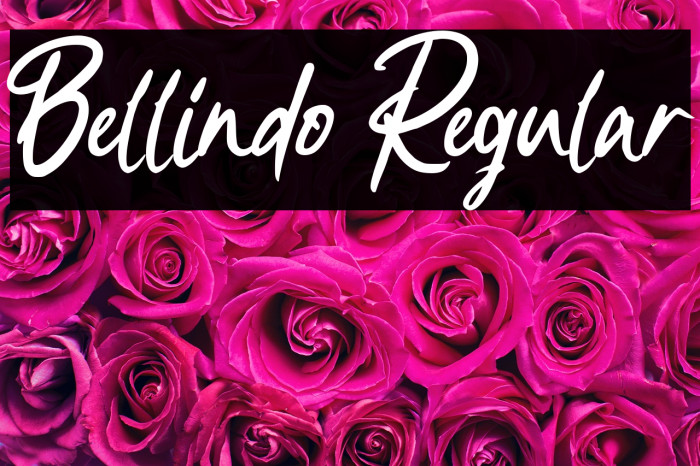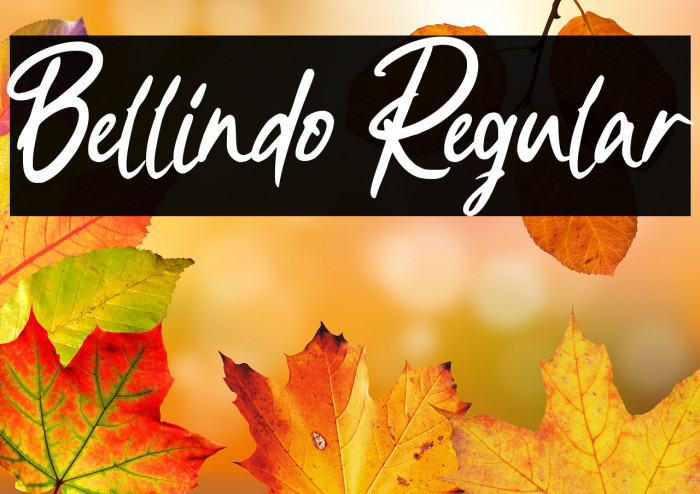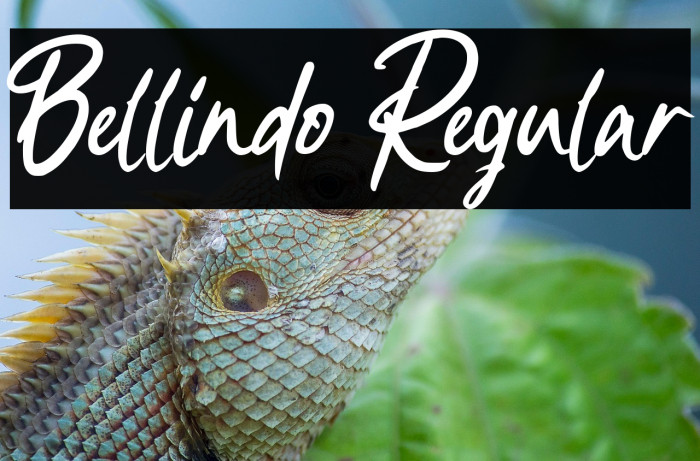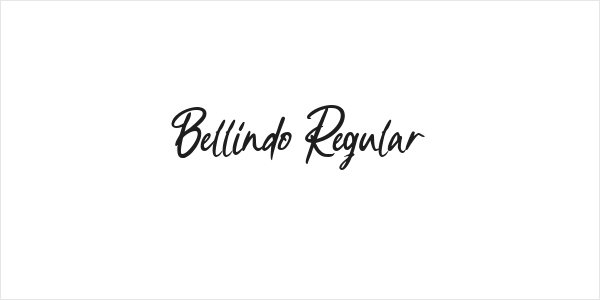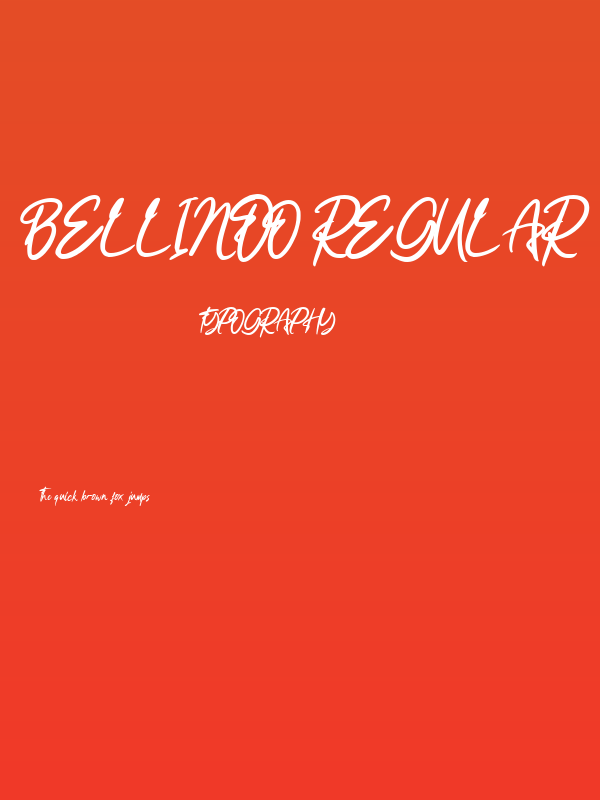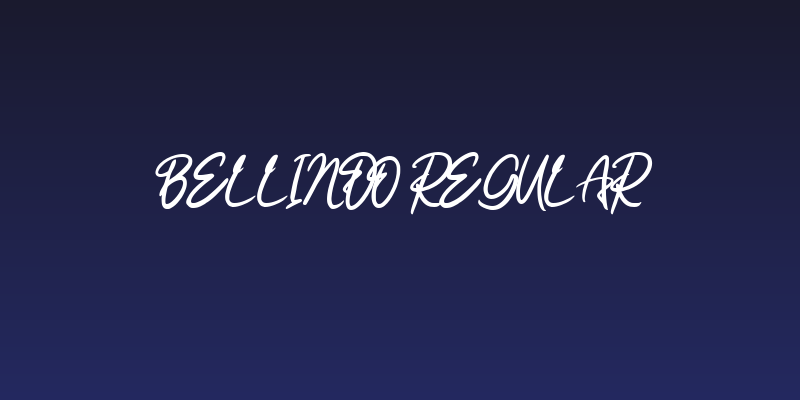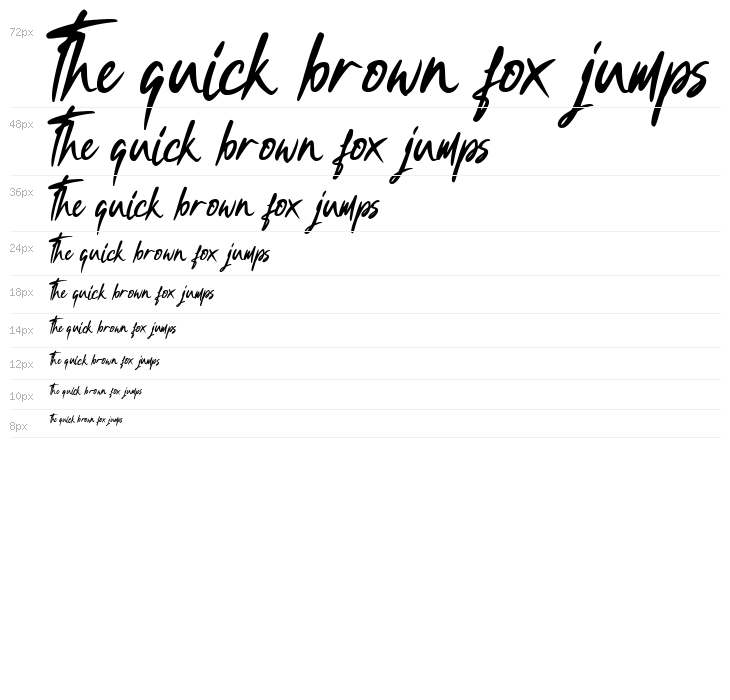
Bellindo Regular Font
Bellindo Regular Description
This font features a dynamic and expressive handwritten style, characterized by its fluid and cursive letterforms. The strokes are bold and confident, with a natural flow that mimics the motion of a brush or pen. Each character is distinct yet harmoniously connected, creating a cohesive and lively appearance. The uppercase letters are particularly striking, with a sense of movement and energy, while the lowercase letters maintain a consistent rhythm. The numerals and special characters are equally expressive, ensuring versatility across various applications. This font is ideal for projects that require a personal touch or a creative flair.
| Use Case | Logos, Headlines, Invitations |
| Proposed Projects | Ideal for branding, invitations, greeting cards, and artistic projects that require a personal touch. |